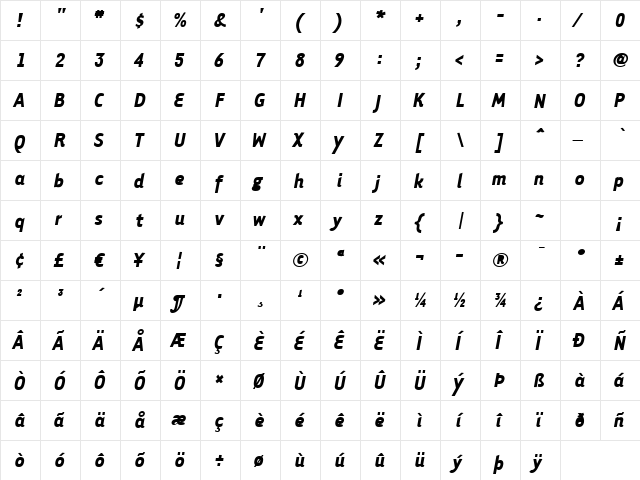
TarzanaNarrow Bold Italic Font Preview
Design Context for TarzanaNarrow Typeface
TarzanaNarrow is a composed and adaptable typeface that performs quietly and consistently across a wide range of design contexts. The slanted form adds forward momentum and visual energy. Its bold stroke weight gives it real presence on the page. Its narrow stance lets it pack a punch even in space-constrained designs.
Pro Tip: Try TarzanaNarrow for annotation and caption copy alongside an upright companion — the contrast in angle creates a dynamic but ordered typographic system.